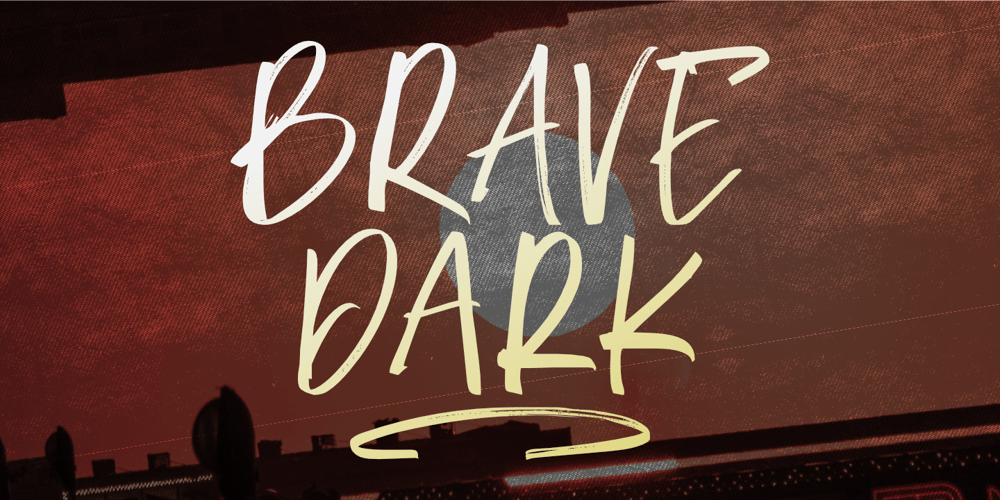
Brave Dark Font Family was designed by Nurul Hidayani and published by Olivetype. Brave Dark contains 1 styles and family package options. Brave Dark is a creatively hand-drawn brush font. Its unique style is characterized by strong strokes and beautiful, spontaneous-looking lettering. This font will allow you to create an attractive, urban look for your design project.So what’s included : Basic Latin Uppercase and Lowercase Numbers, symbols, and punctuations Multilingual Support. Simple Installations Works on PC & Mac Thank You and Happy Designing!